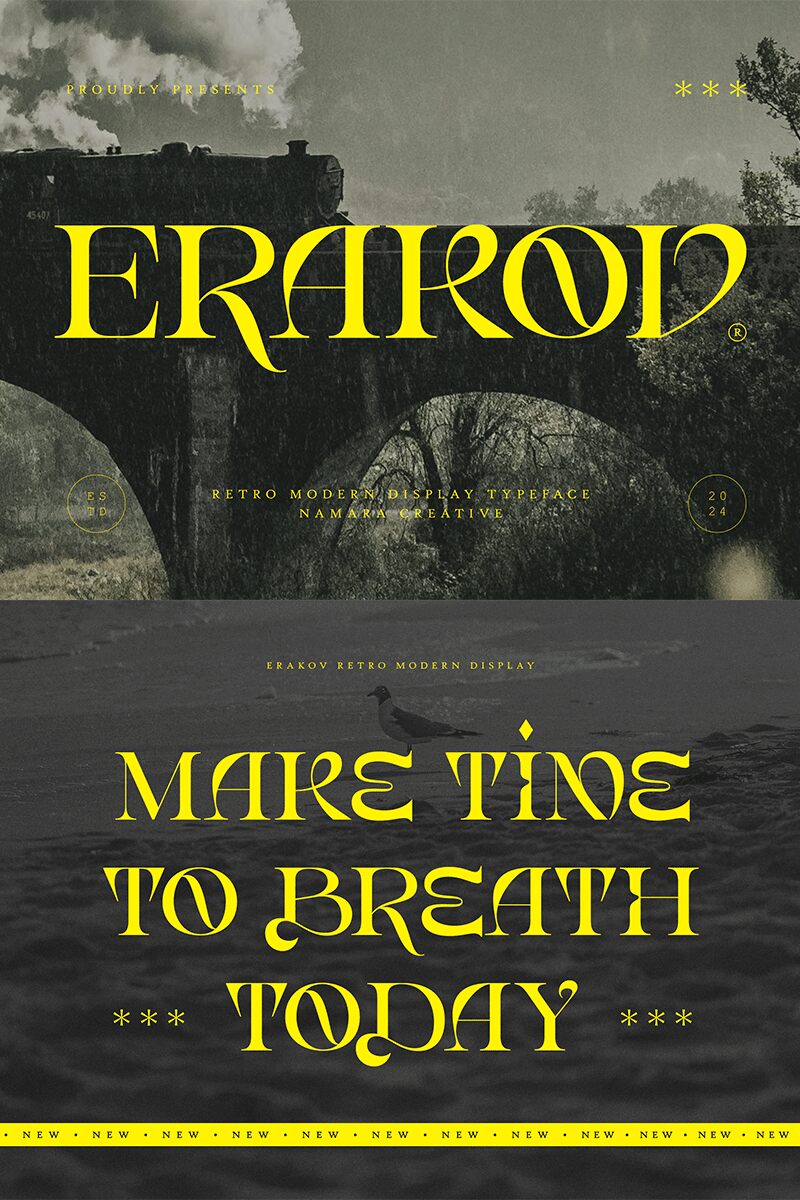
Erakov font
Erakov
Retro modern serif display font, embrace a typeface that encapsulates the essence of retro charm and modern minimalism. Whether you’re looking to evoke nostalgia or convey contemporary elegance, this font is your go-to solution for achieving that perfect balance.